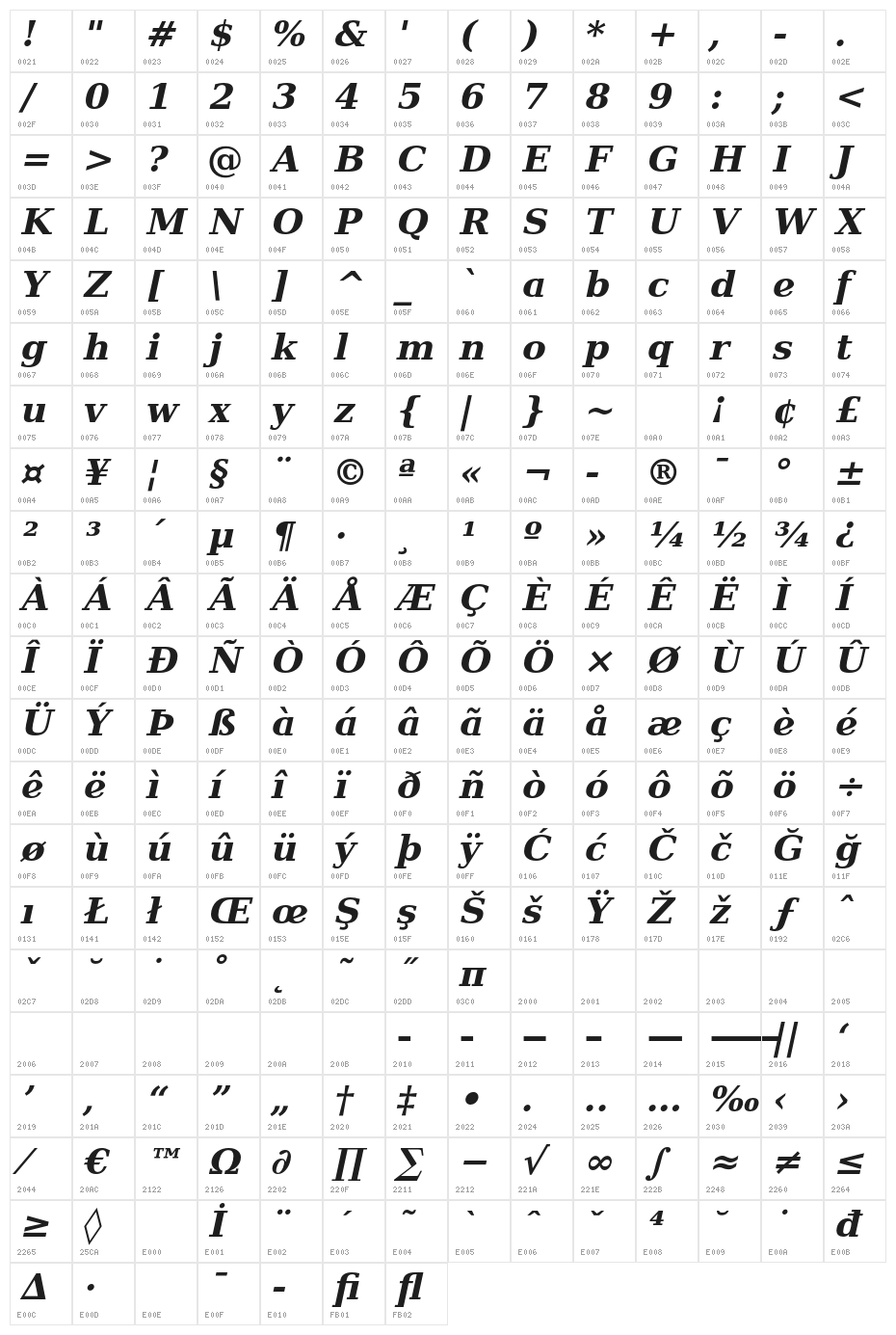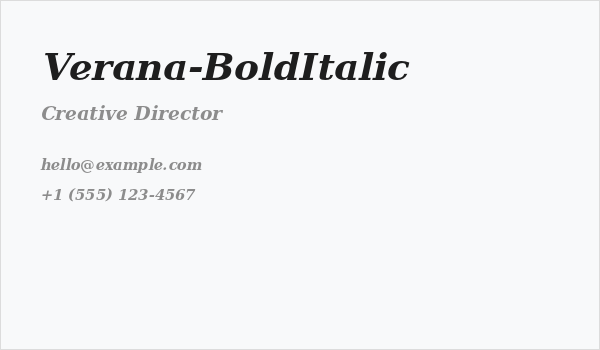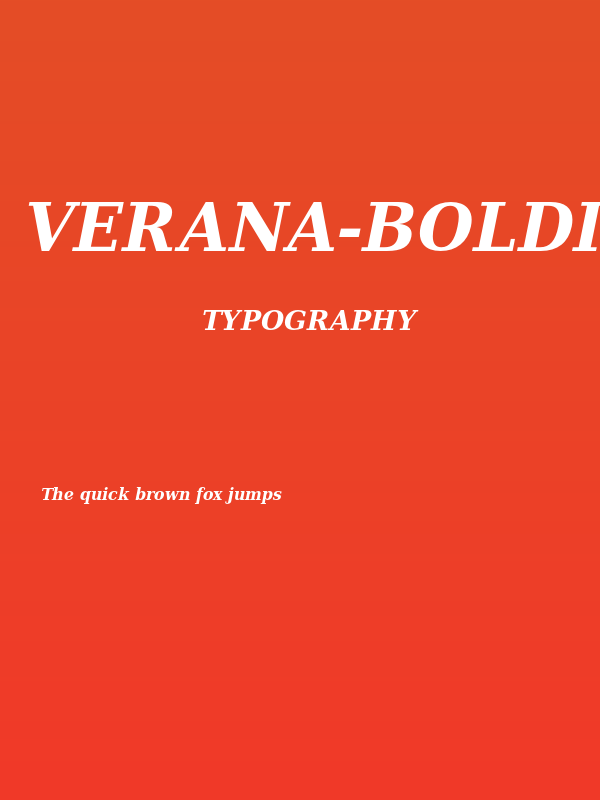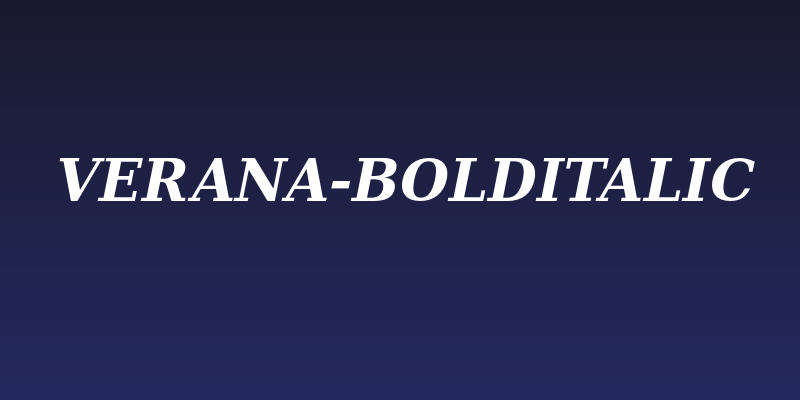
Verana-BoldItalic Font
This font exhibits a bold and italicized style, characterized by its strong and confident presence. The letters are slightly slanted, adding a dynamic and elegant touch to the overall appearance. The strokes are thick and consistent, providing a sense of stability and emphasis. The uppercase letters are well-proportioned, while the lowercase letters maintain a harmonious flow. The numerals are clear and distinct, making them easily readable. Special characters are included, enhancing the font's versatility for various applications. This font is suitable for projects that require a bold statement with a touch of sophistication.
| Proposed Projects | Ideal for branding, headlines, advertising, and editorial design where a bold and elegant statement is needed. |